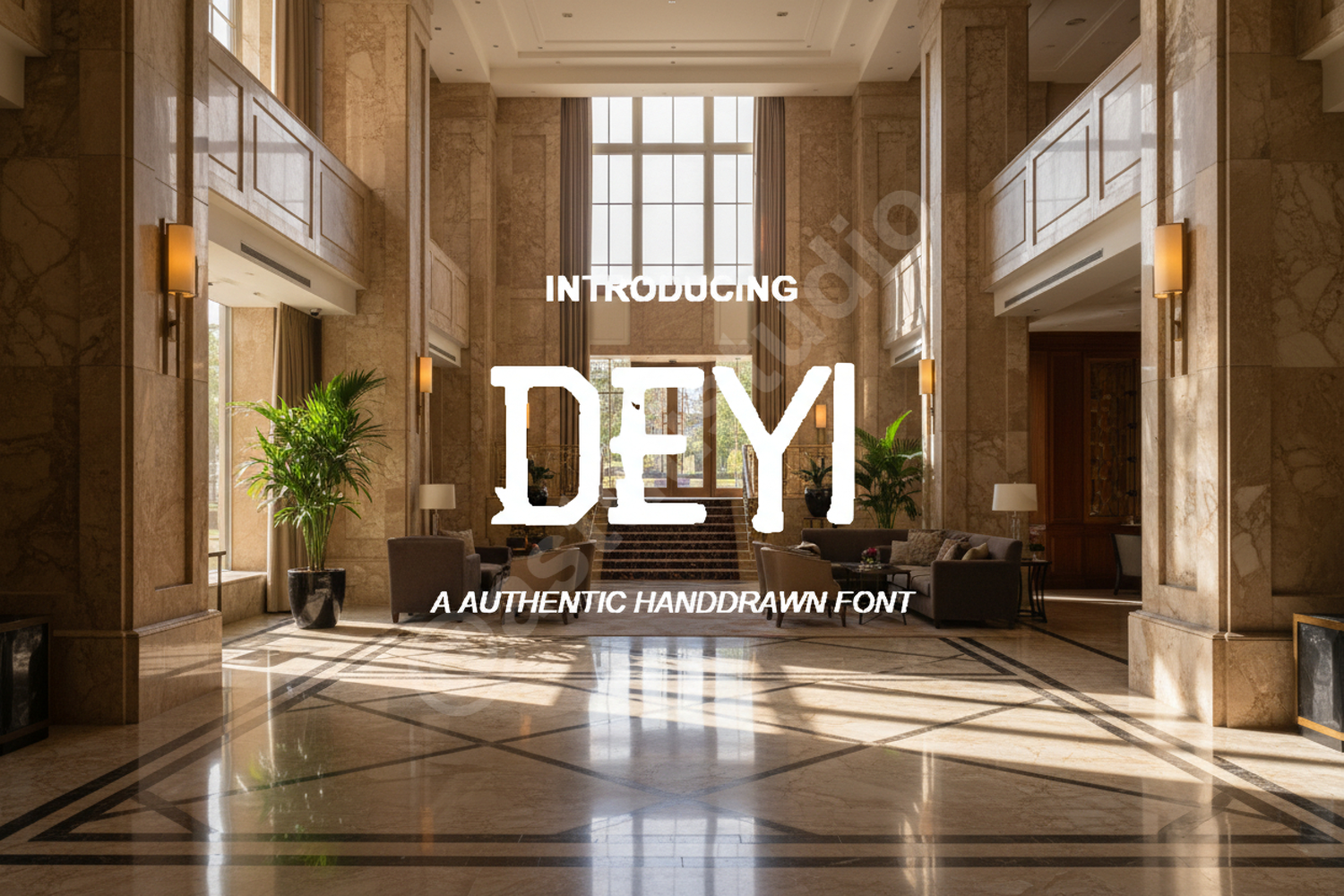
Deyi - Elegant Modern Minimalist Sans Serif
Deyi
Introducing Deyi, a premium sans serif typeface designed for creators who value simplicity and sophistication. With its clean lines and balanced proportions, Deyi offers a timeless aesthetic that elevates any design project. Whether you are building a brand from scratch or refining an existing layout, this font provides the versatility and professional polish required for high-end results.
- Branding and Identity: Create memorable logos and sophisticated brand guidelines.
- Editorial Design: Perfect for high-fashion magazine layouts and crisp headlines.
- Digital Media: Highly legible and optimized for websites and social media graphics.
- Product Packaging: Adds a touch of luxury to premium product labels and boxes.
- Minimalist Marketing: Ideal for clean, high-impact visual communication and posters.